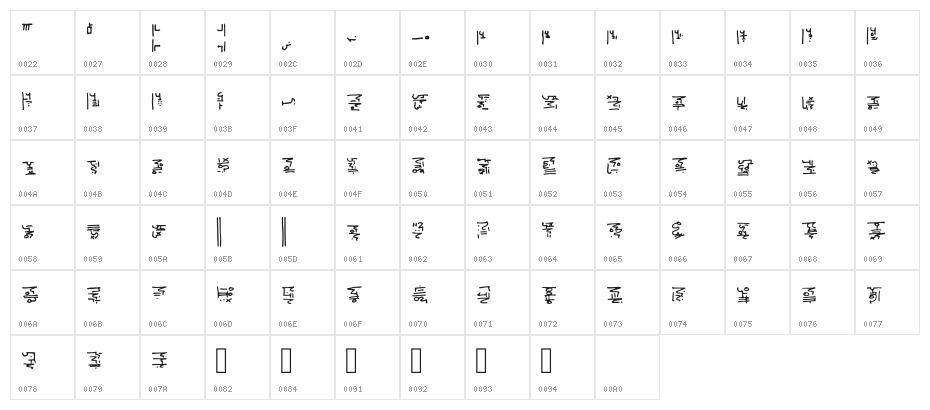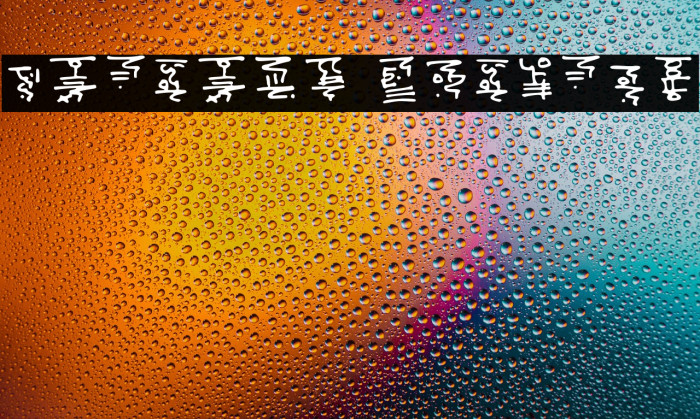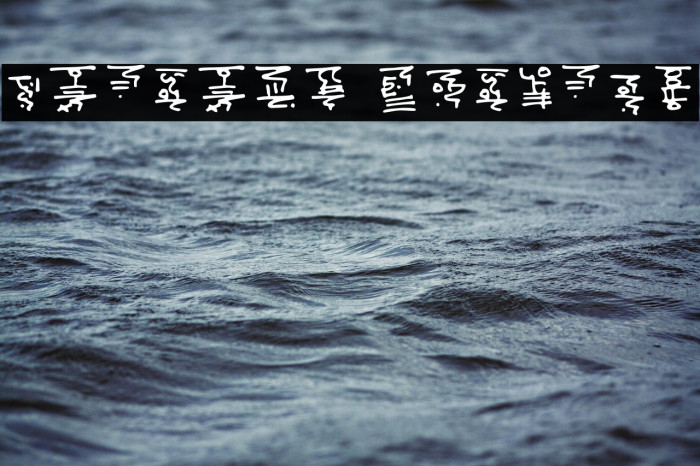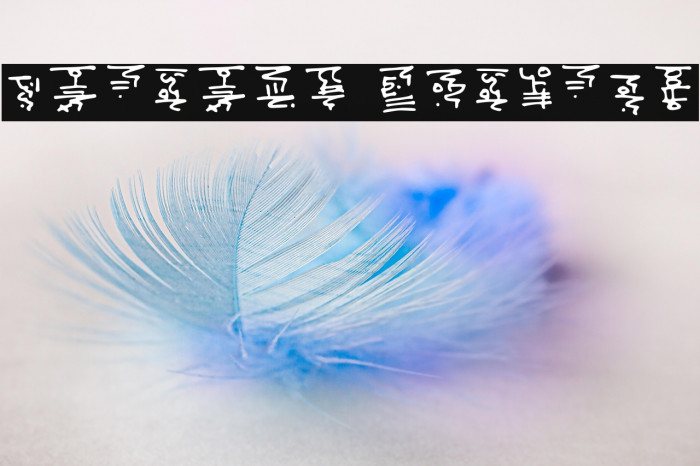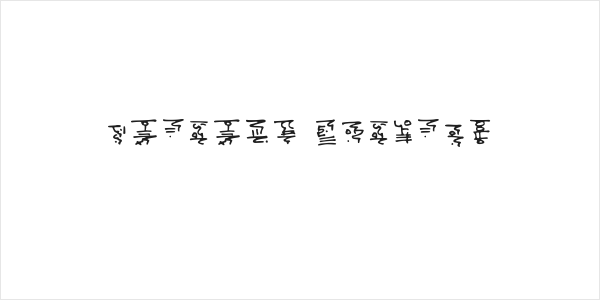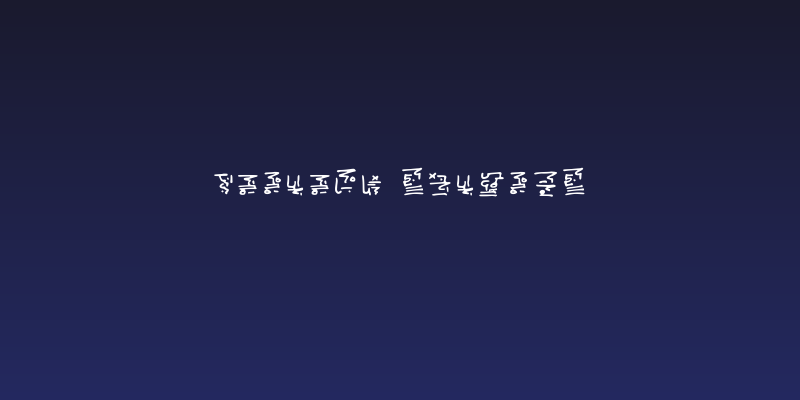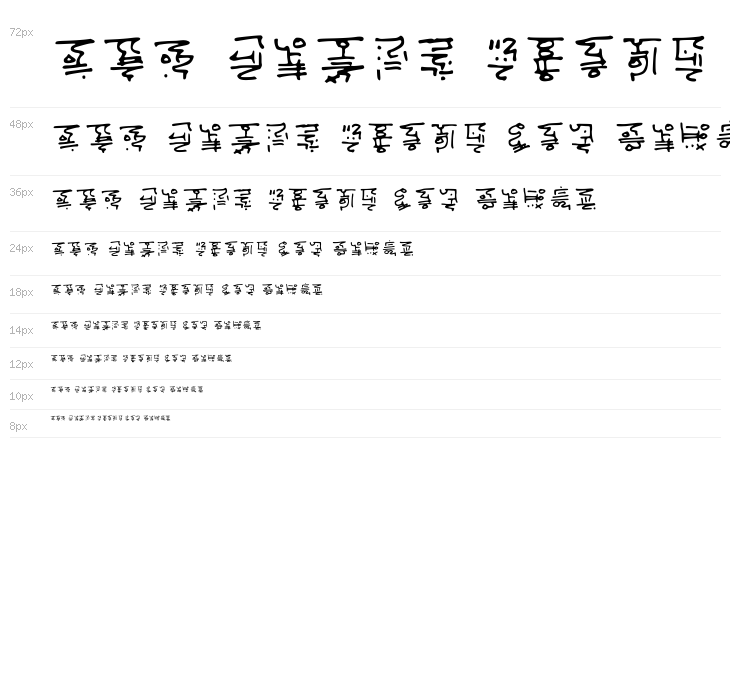
Kilgish Regular Font
Kilgish Regular Description
A highly decorative, abstract script with unique, hand-drawn glyphs featuring irregular strokes, dots, and lines, evoking an ancient or fantasy writing system. The characters are visually complex and do not resemble standard Latin or numeral forms.
| Overall Style | Decorative, Ancient, Fantasy |
| Use Case | Logos, Posters, Game UI, Artistic projects |
| Proposed Projects | Fantasy world-building, game design, fictional languages, mystical branding, artistic posters. |